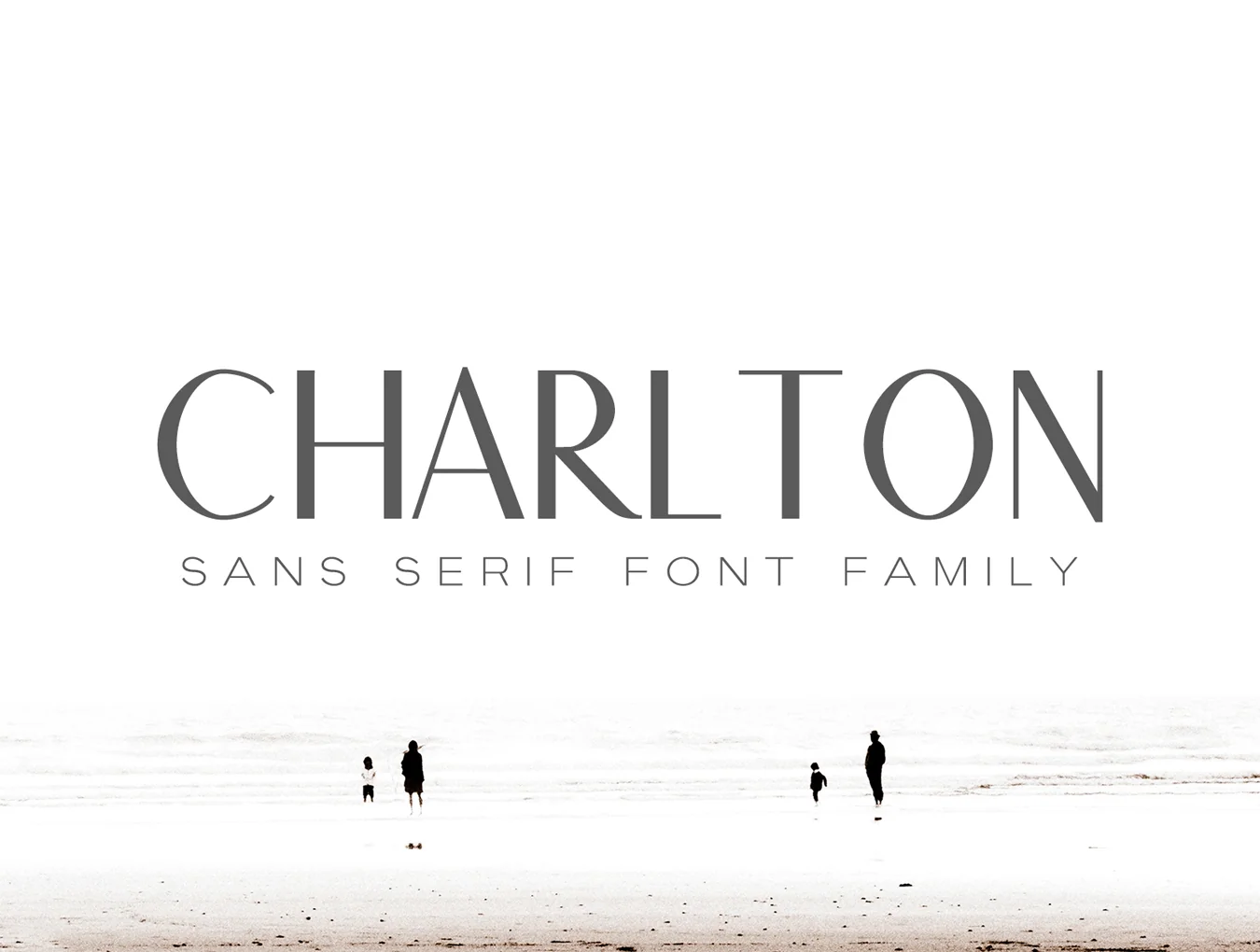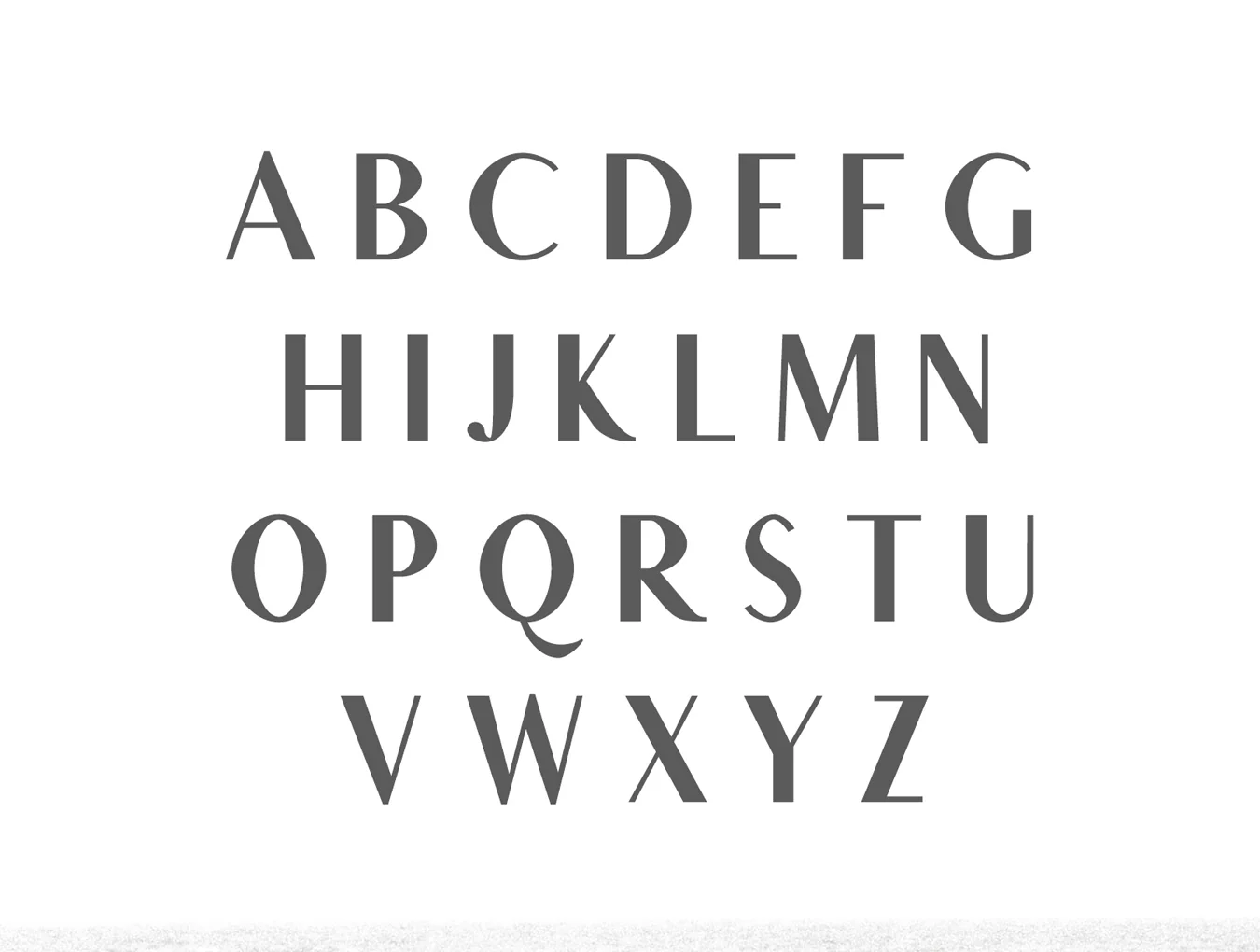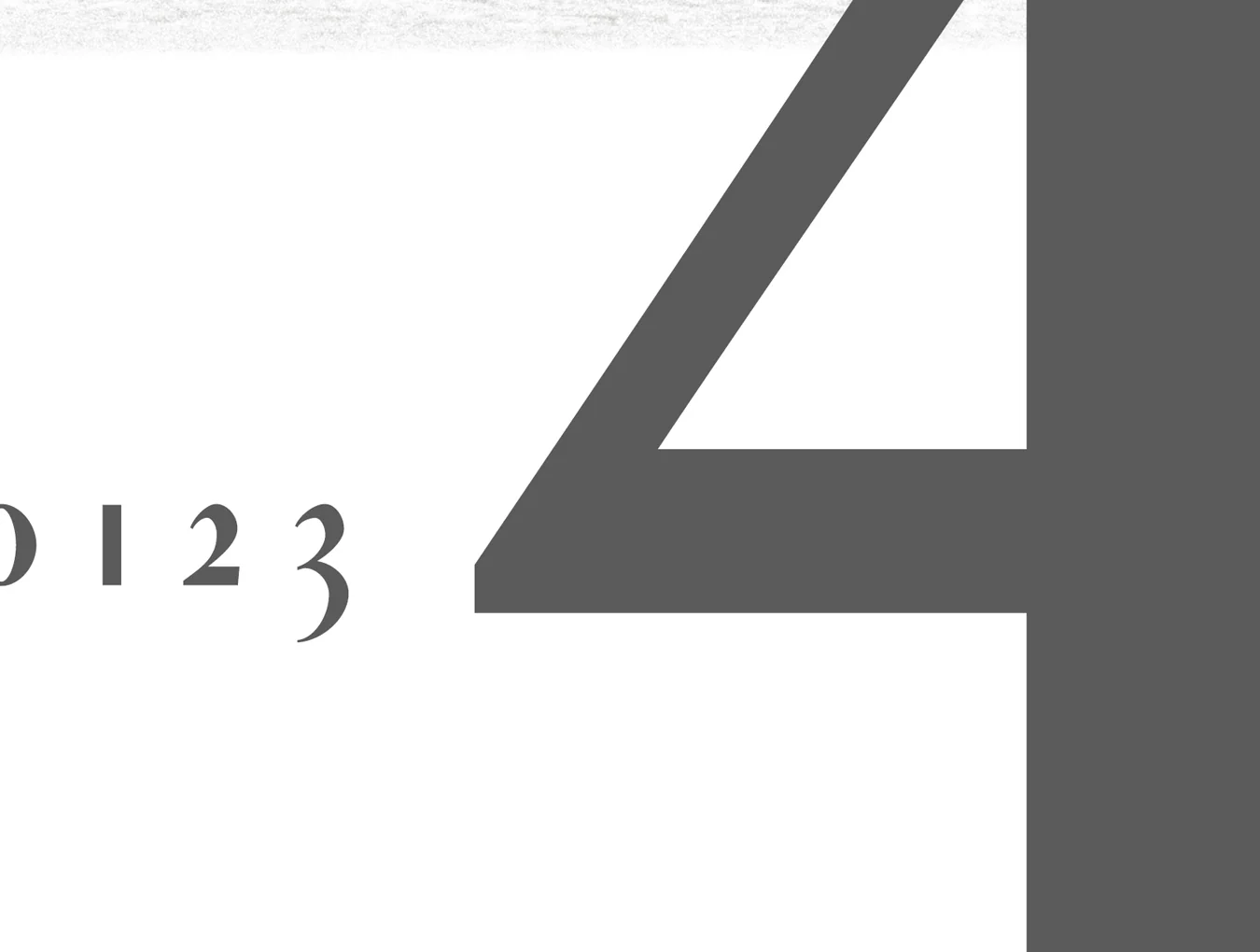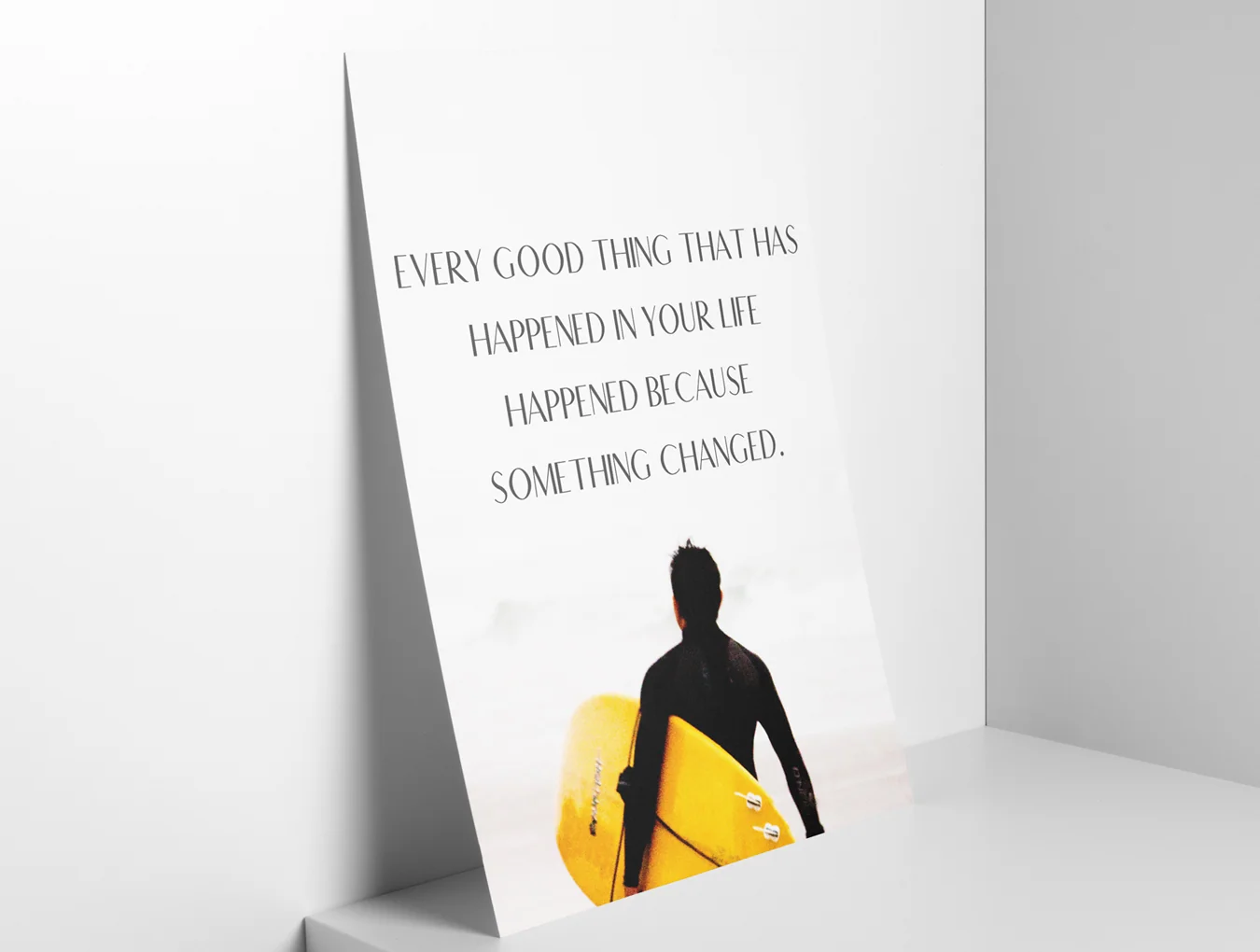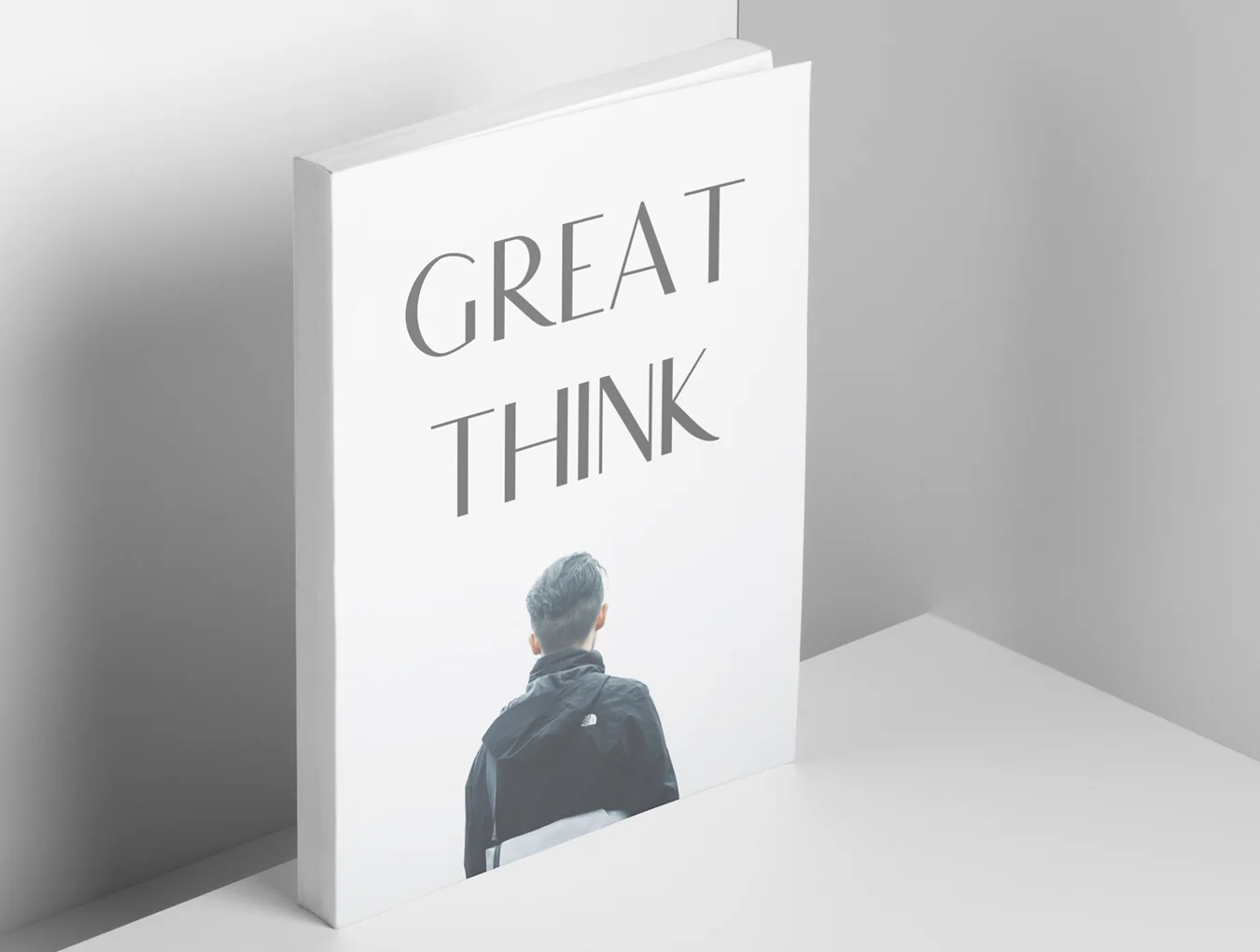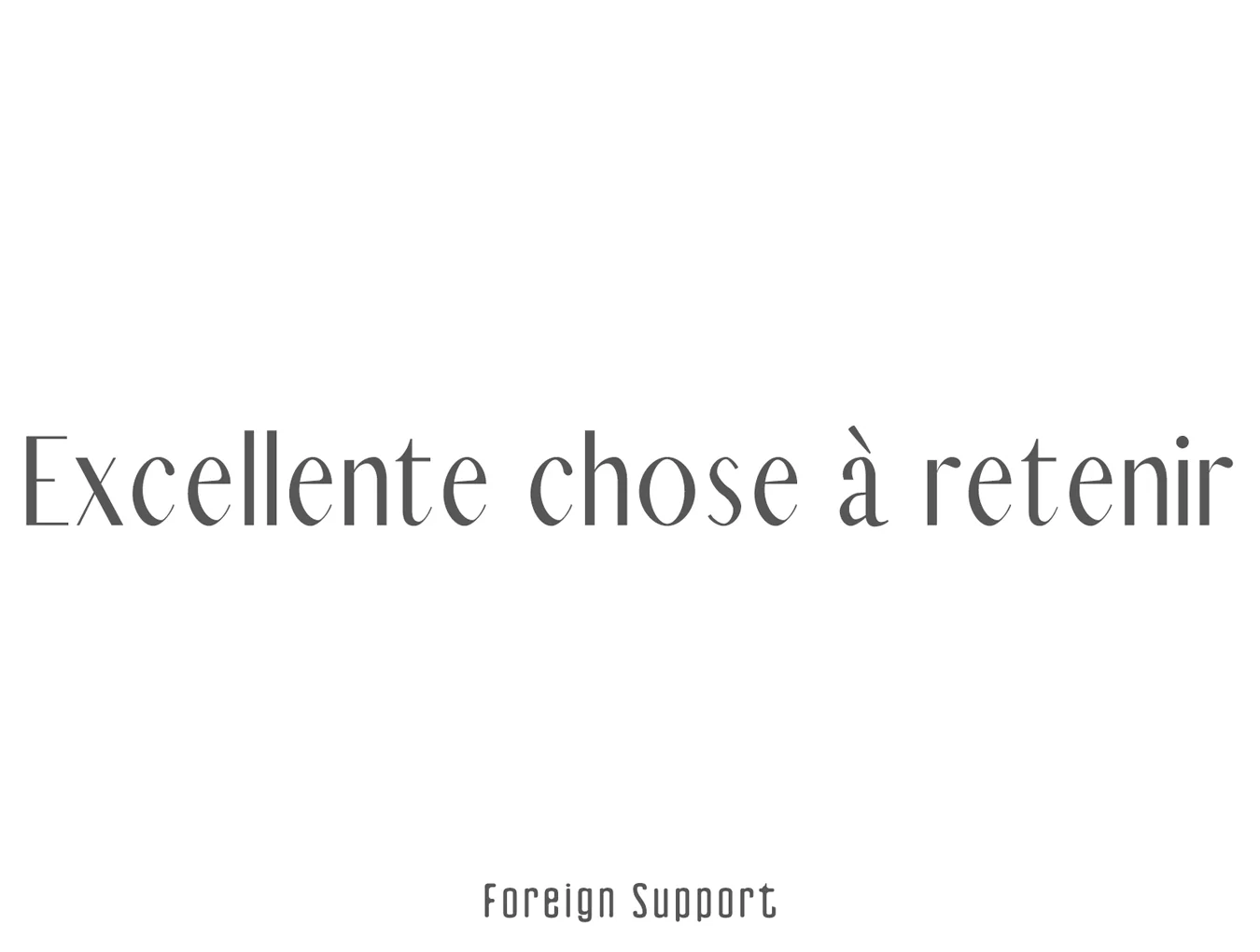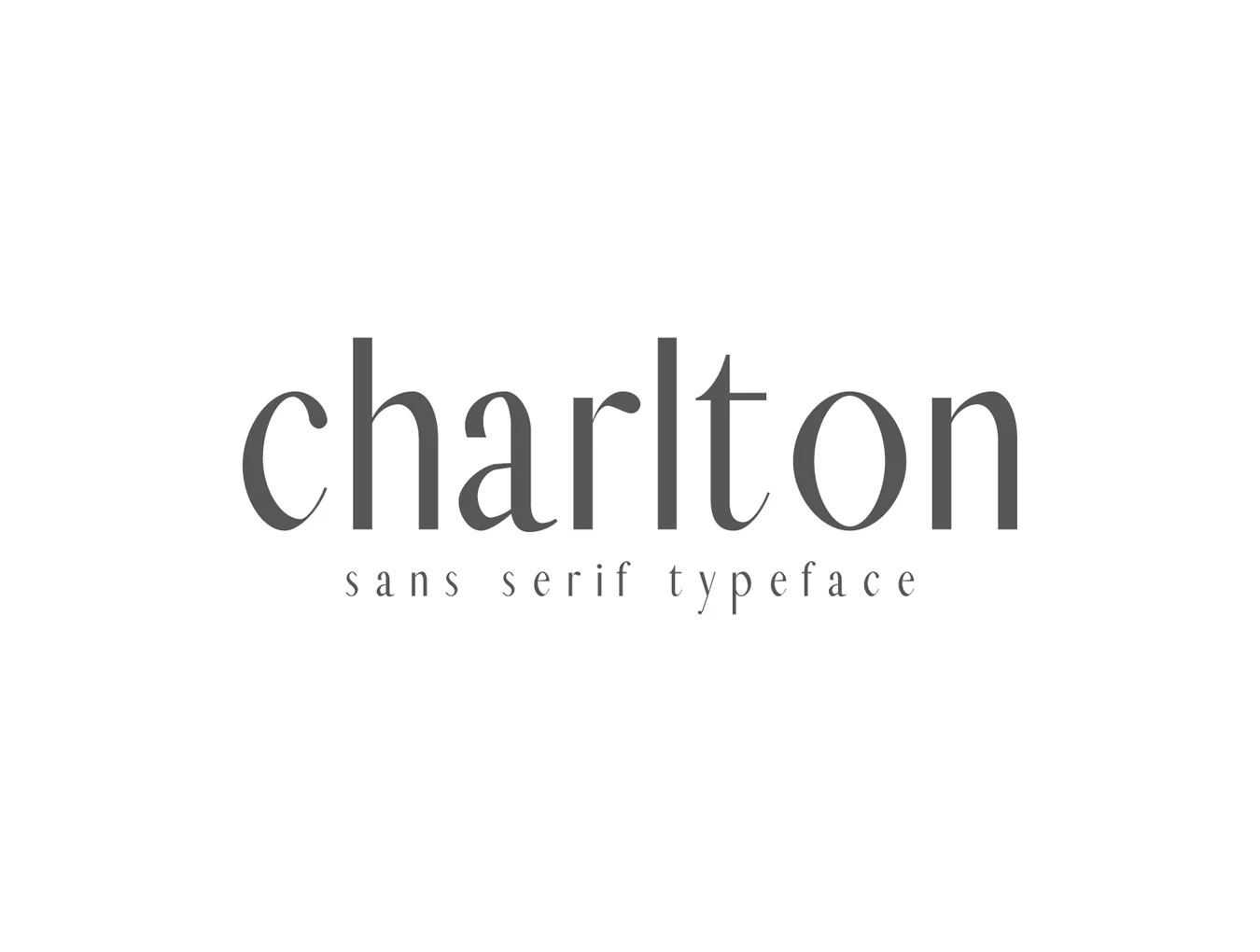
Charlton Sans Font Family
Charlton Sans Serif 9-Font Family Bundle
Sans serif family pack with 9 fonts
292 included glyphs
Regular, Thin, Light and Medium styles
Charlton Sans Serif Font Family Pack is a clean, elegant typeface with 9 weights and a fresh modern style. Ideal for logos, headlines, websites, and branding, it shines in uppercase with generous spacing for a refined feel, or in mixed case for a timeless look.